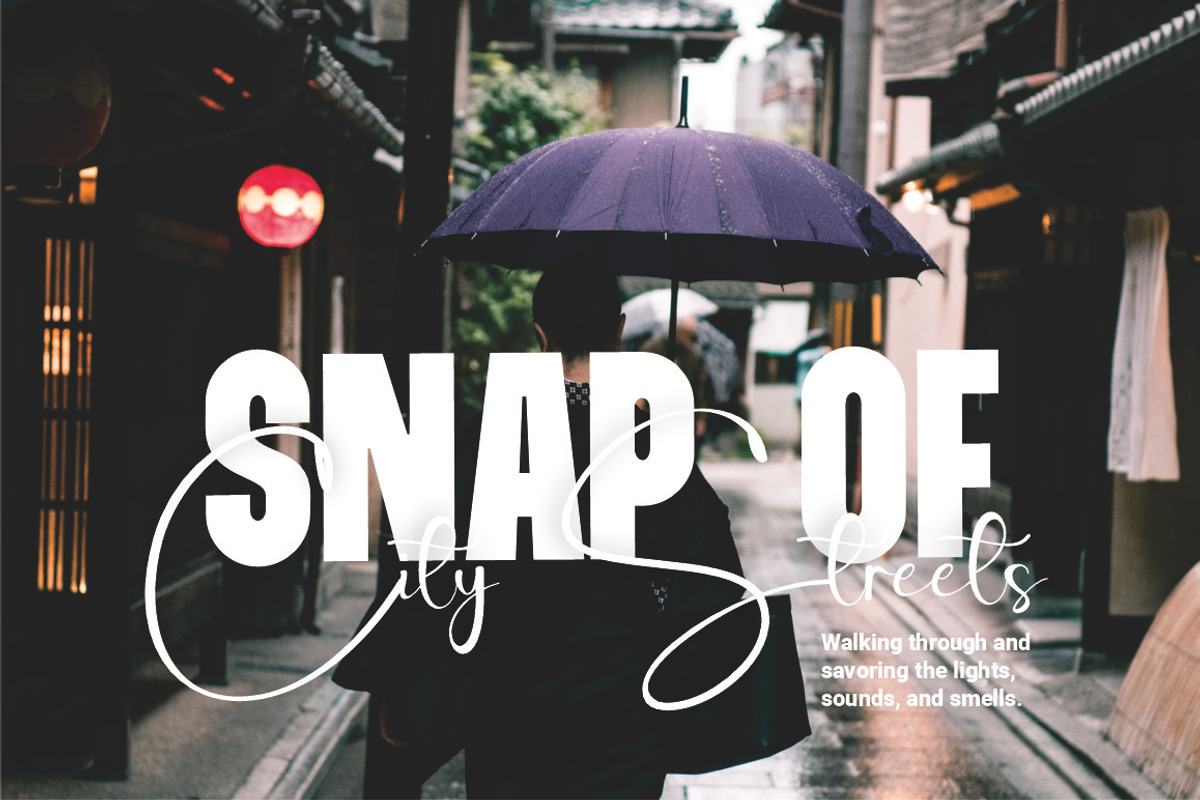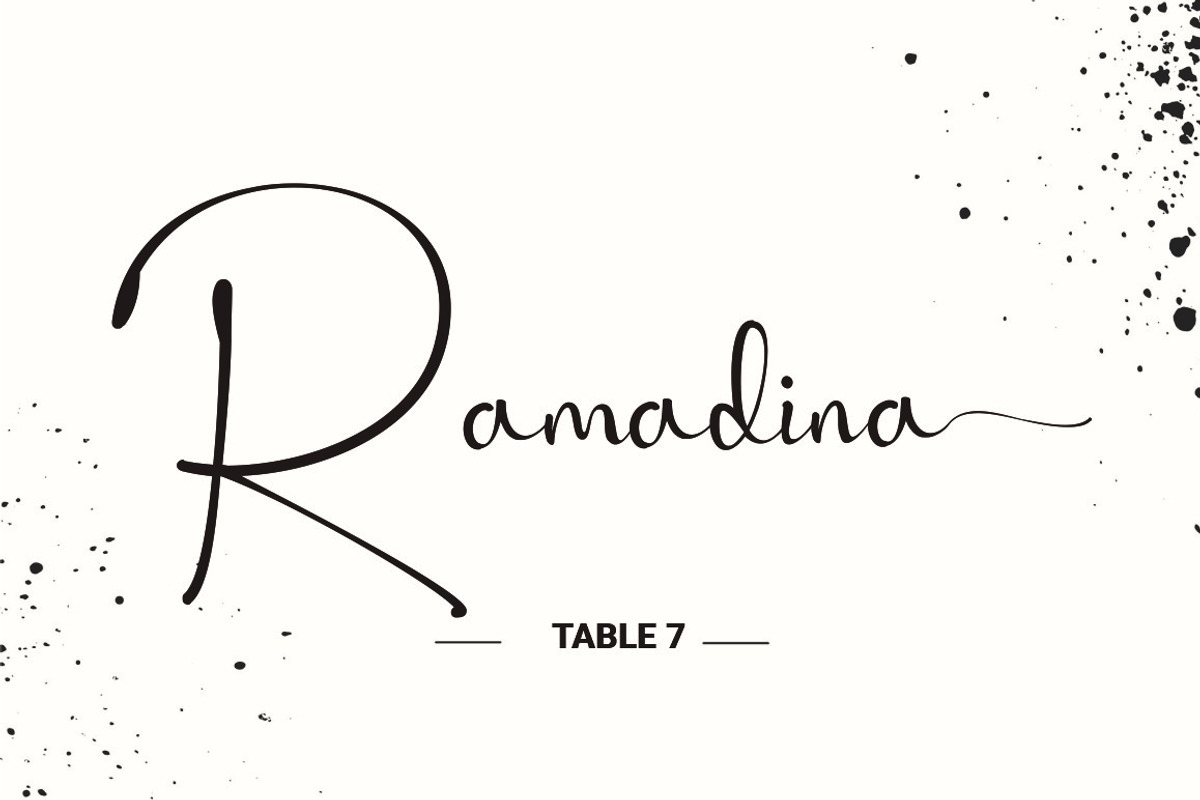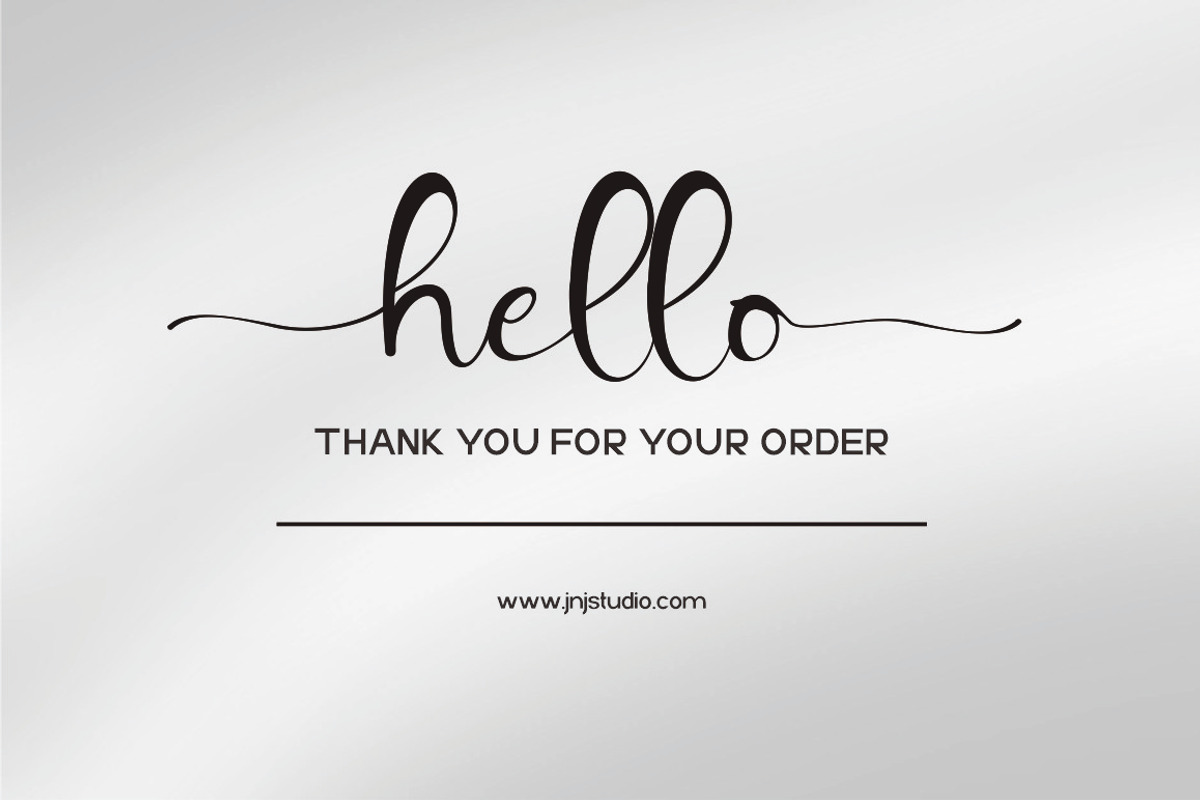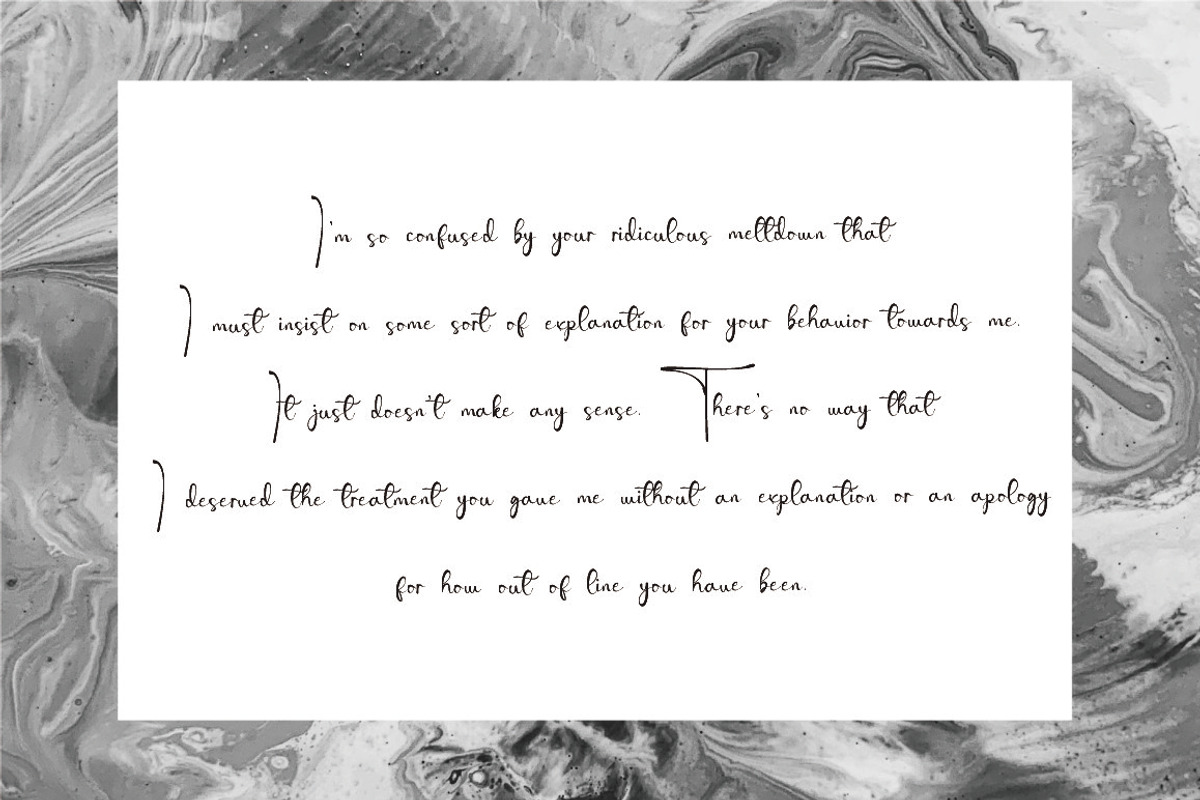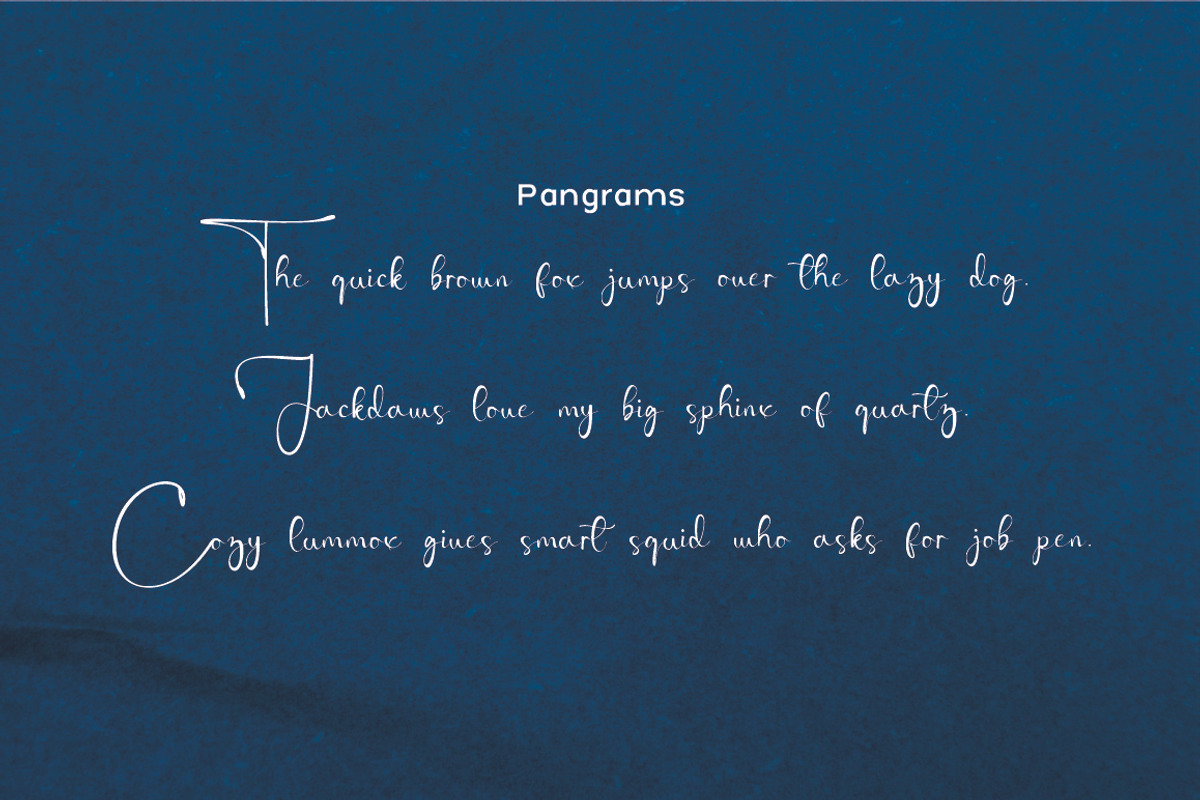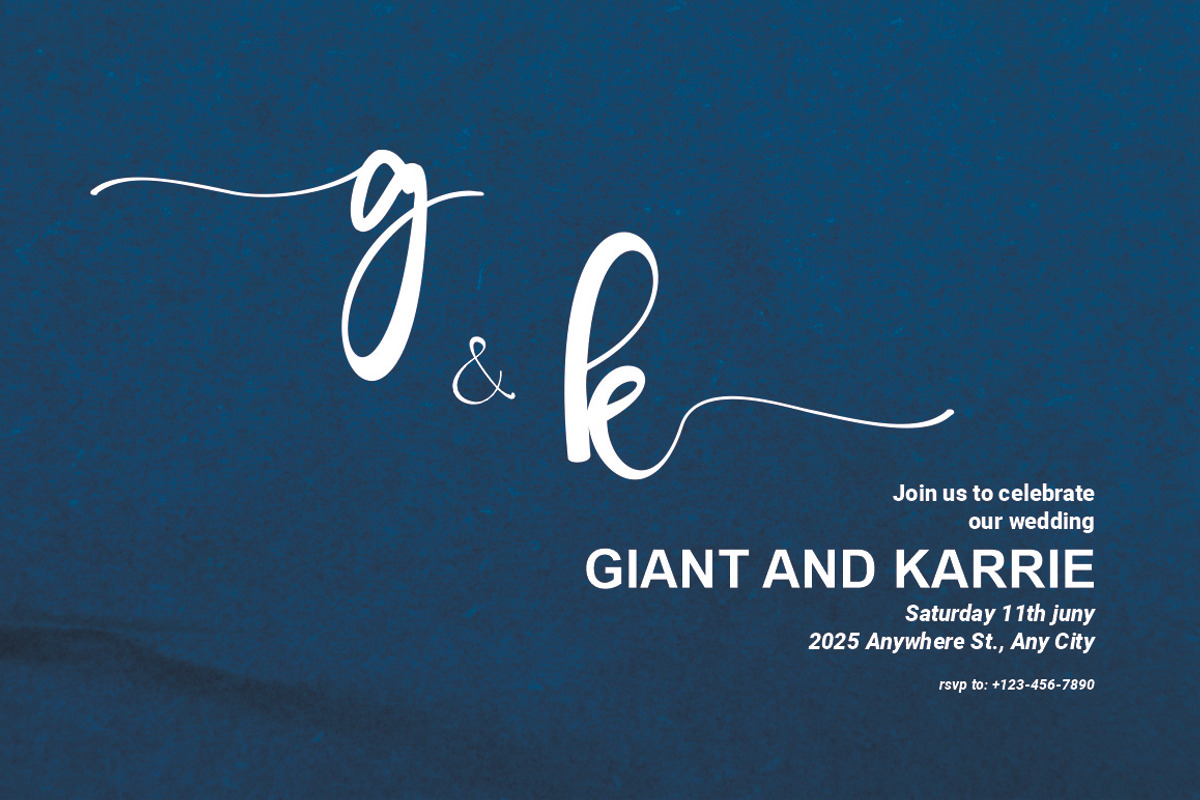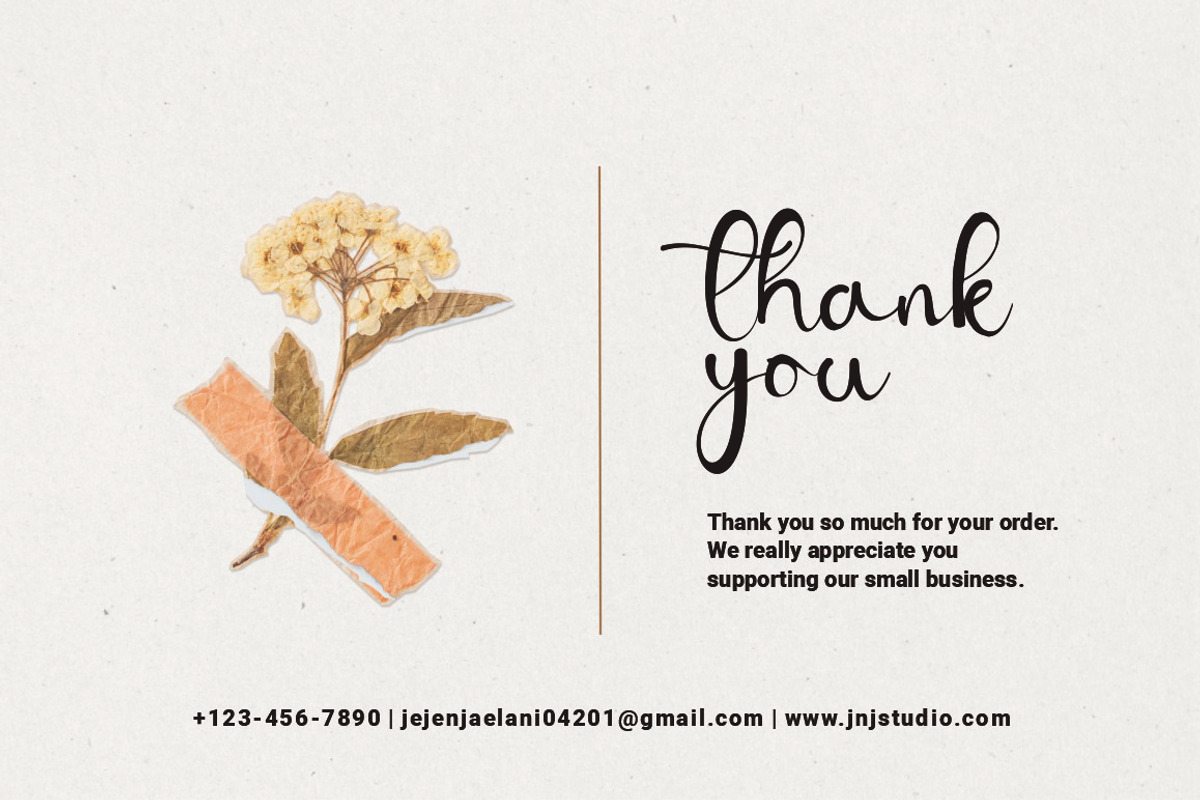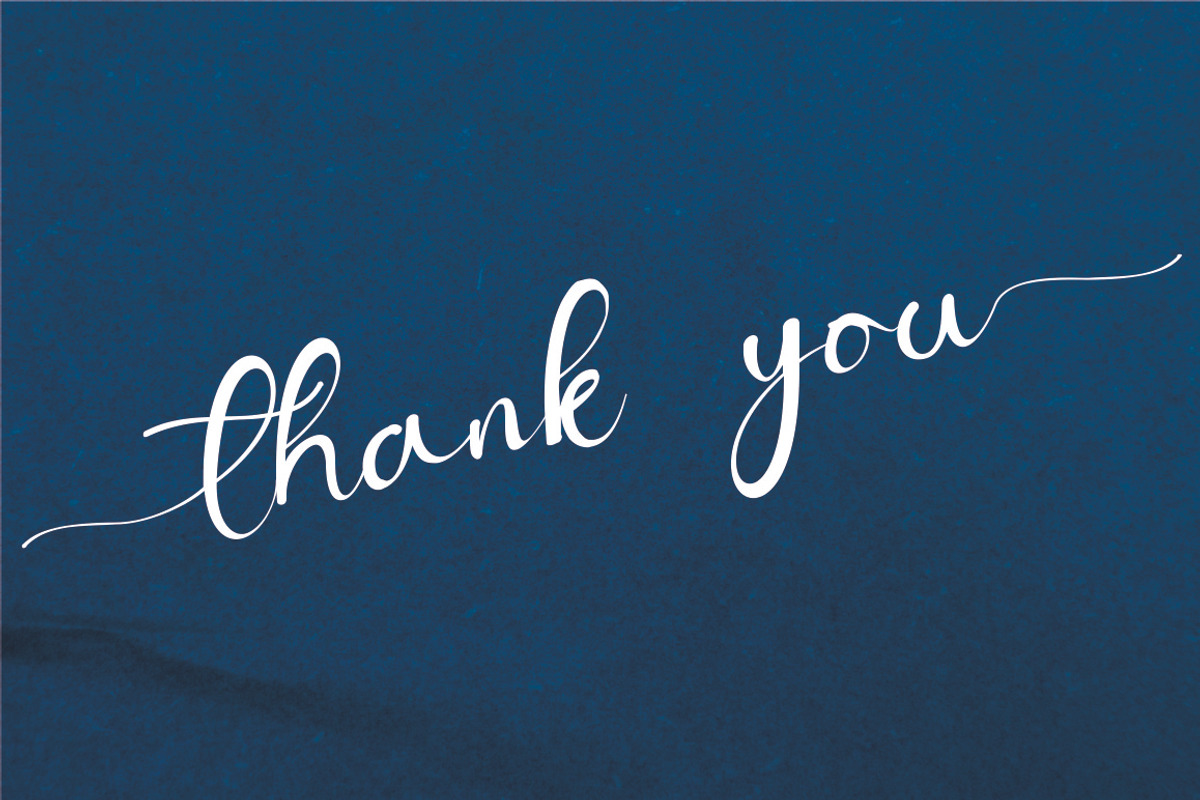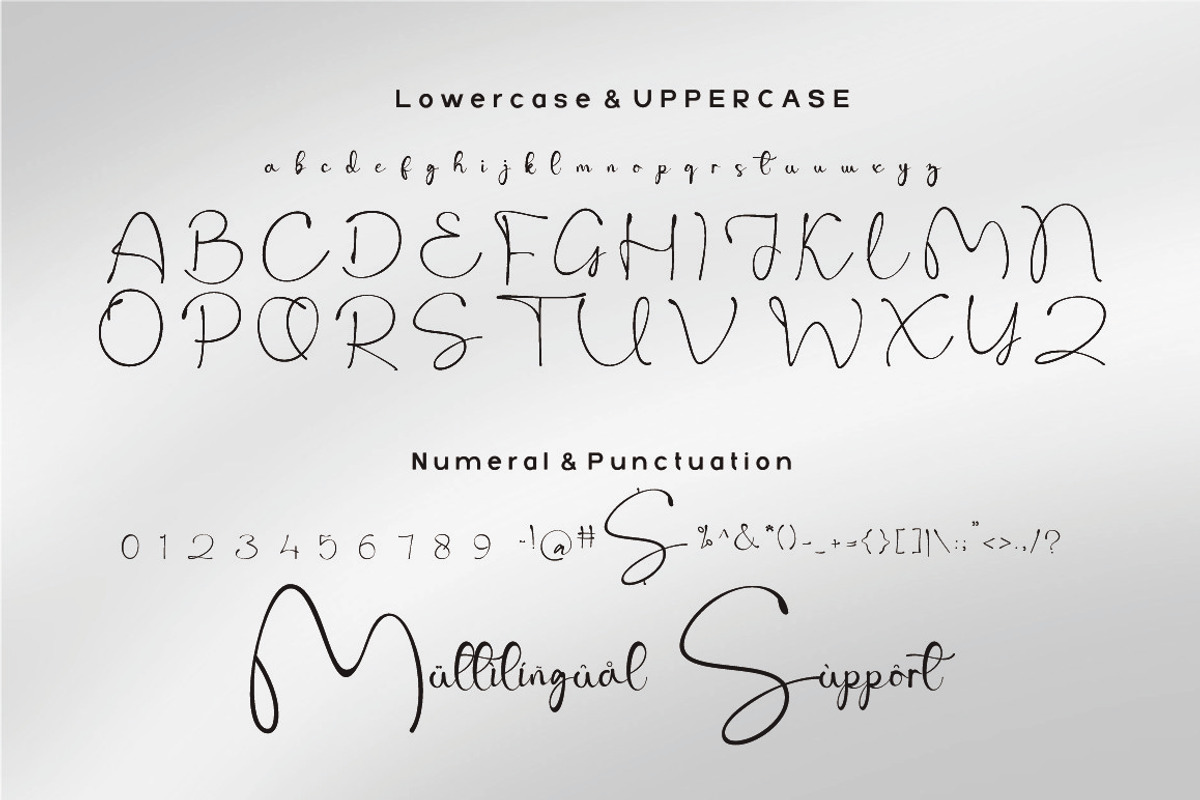
Rigalia Script
Introducing "Rigalia" is a luxurious script font that exudes elegance and sophistication. With its fluid strokes and refined curves, Rigalia captures the essence of timeless handwriting while maintaining a modern edge. Designed to mimic the graceful flow of calligraphy, each character in Rigalia is meticulously crafted to bring charm and personality to your designs.
Perfect for wedding invitations, branding, logos, and high-end packaging, Rigalia offers both beauty and versatility. Its delicate ligatures and stylish alternates allow for customized, artistic expression in every word.